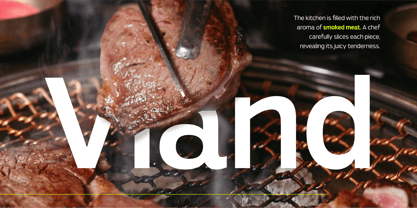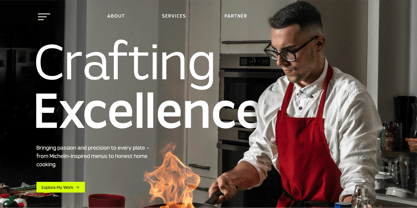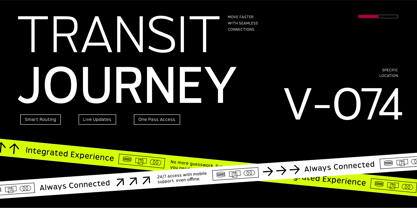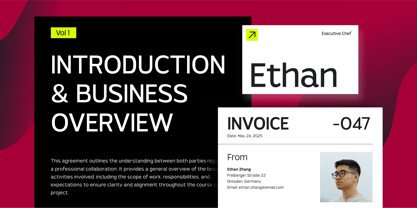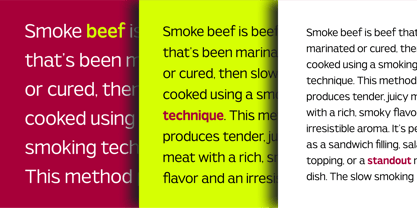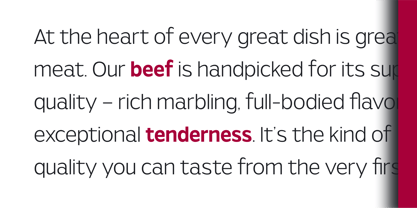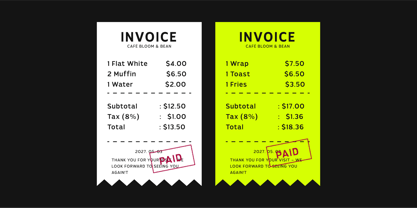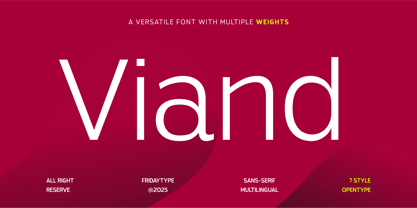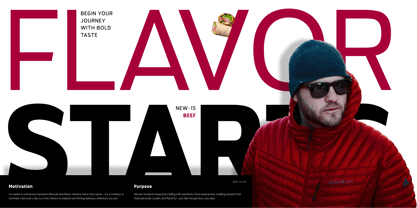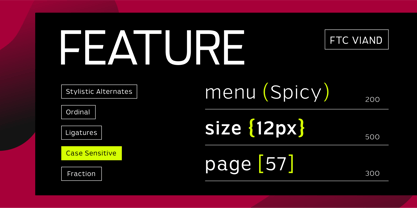
Viand
by Fridaytype
The Viand Font Family was designed by Farida Kurniawan and published by Fridaytype. Viand contains 7 styles and family package options.
Viand — A Versatile Sans with Flavor
Viand is more than just a typeface — it’s a statement of taste. Born from the world of culinary design, Viand brings the same depth, character, and satisfaction as your favorite dish. With 7 carefully crafted weights, this sans serif family was built for brands that dare to be bold, modern, and flavorful.
From ultra-light to bold, each weight of Viand was designed with attention to detail, making it ideal for branding, packaging, signage, editorial layouts, UI design, and everything in between. Its clean yet assertive presence adapts effortlessly to both text and display use — just like the perfect meal adapts to any occasion.
Let Viand add richness to your designs, whether you're working on a restaurant identity, a fashion campaign, or tech-driven UI. The font's multilingual support, case-sensitive punctuation, and stylistic alternates ensure it's not only beautiful but functional across every touchpoint.
Feature:
- A versatile sans-serif with 7 styles.
- Over 400 glyphs supporting Latin, symbols, arrows, and math.
- Perfect for restaurant branding, fashion campaigns, and tech UIs.
- Works well across various media and platforms.
- Supports 90+ Latin-based languages.